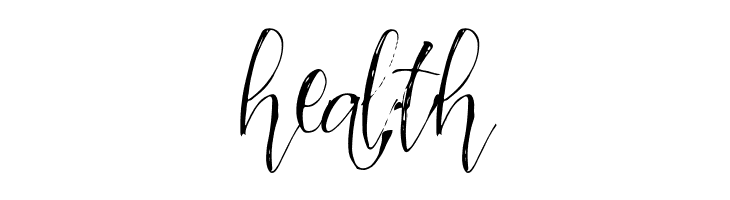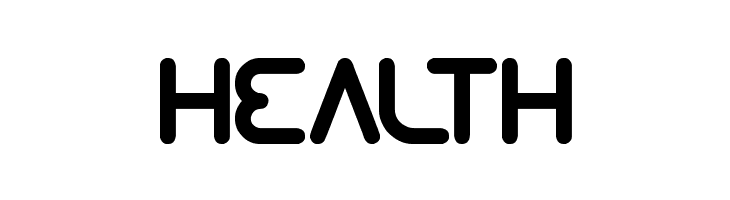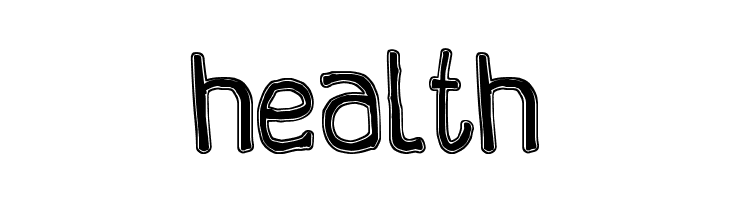
A playful, bold handwritten font with thick, uneven strokes and a whimsical touch.
A bold, modern font with strong, angular lines and clear readability.
A modern, geometric font with rounded edges and a bold, uniform appearance.
A modern, rounded font with a futuristic and geometric style.
A playful, handwritten font with a casual and whimsical style.
An elegant script font with intricate swirls and flourishes.
A charming handwritten font with elegant, flowing letterforms and decorative flourishes.
A playful, informal handwritten font with uneven strokes and charming irregularities.
A playful, handwritten font with consistent stroke thickness and a casual style.